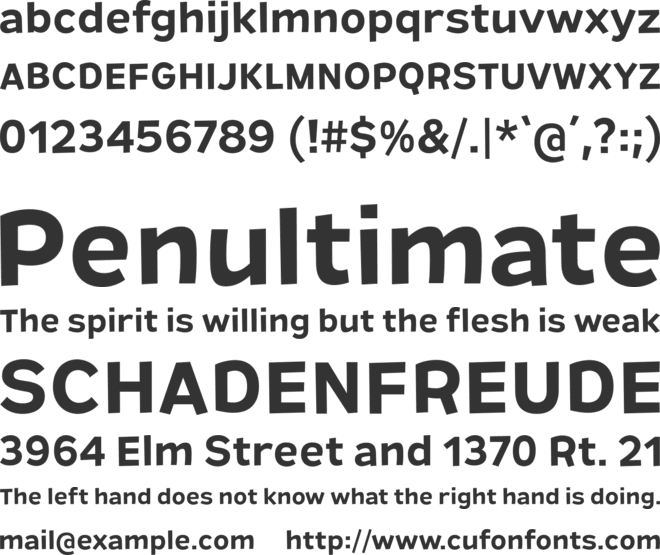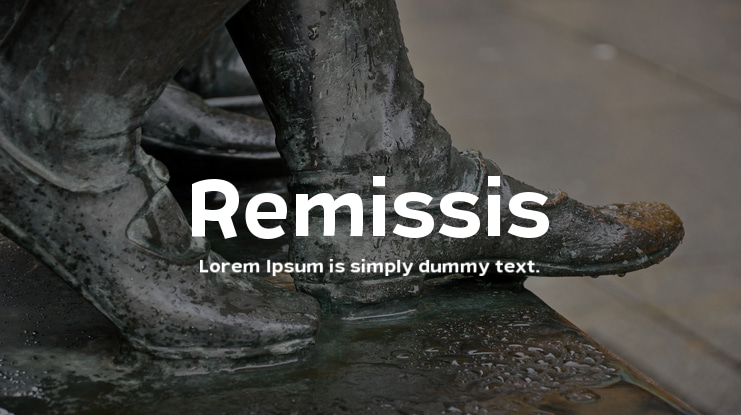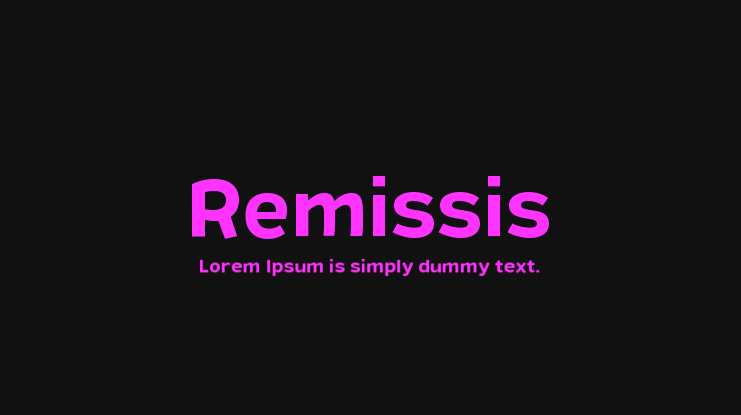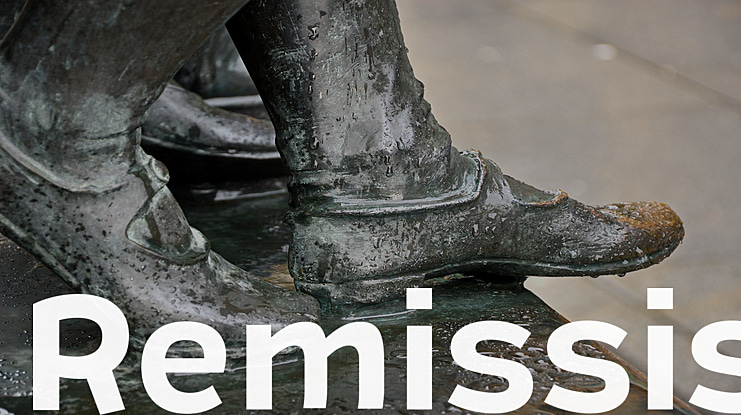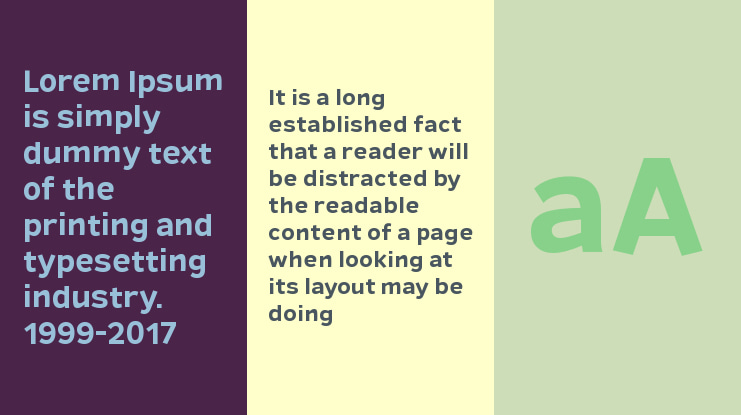
Remissis Font
Remissis is a semi-casual sans-serif typeface available in 7 weights and italics. In OpenType savvy applications, you can access lining old-style numerals. Remissis was designed for high-resolution display and print. There are plenty of mathematical symbols, monetary symbols and combining diacritical marks. Remissis supports Greek, Vietnamese, Cyrillic, Pan-Nigerian and most Latin based languages. The desktop license for Remissis Semi-Bold is free.